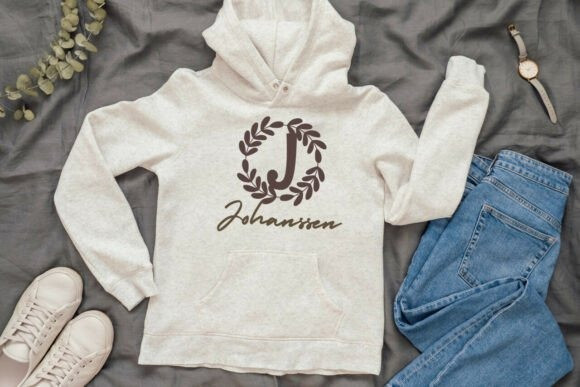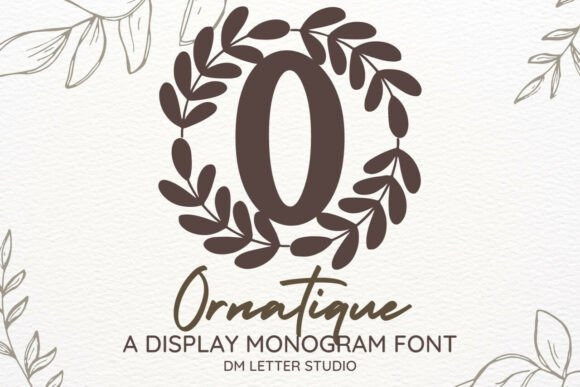
Ornatique Monogram Font
Ornatique Monogram Font turns simple initials into refined emblems with quiet flair. Lines feel smooth and confident. Curves stay open, so tiny tags still read clearly. Use it for wedding suites, boutique logos, keepsake gifts, and premium packaging. Moreover, this Monogram Font pairs beautifully with soft serifs and modern sans, which keeps layouts elegant without extra effort.
Where the Monogram Font shines
Set single, double, or triple initials for logos and seals. Then surround them with laurel rings, oval borders, or fine rules to echo the graceful forms. Since the proportions favor symmetry, polished compositions come together in minutes. As a result, your thumbnails stand out and your listings stay consistent across platforms. Plus, Ornatique scales smoothly from jewelry cards to venue signage.
Fast setup, polished results
Design tips for Ornatique Monogram Font
Keep initials large and let white space breathe. Pair the headline monogram with a quiet serif or humanist sans for body text. Meanwhile, add micro shadows, thin inner strokes, or a delicate frame for depth. Because the structure feels airy, metallic accents and textured papers raise perceived value. However, keep the copy short so the Monogram Font remains the hero.